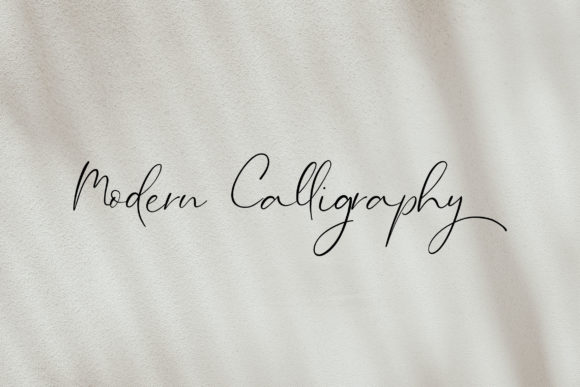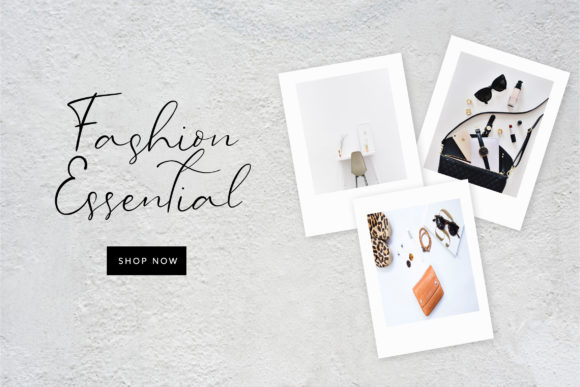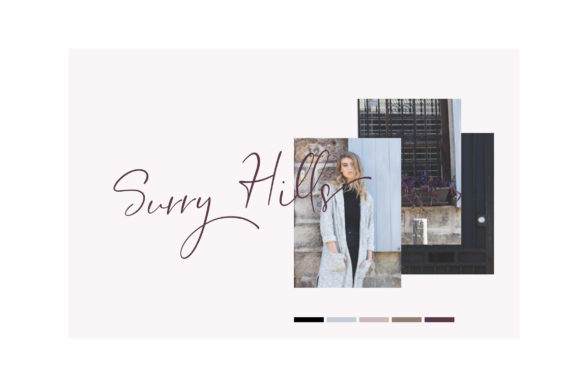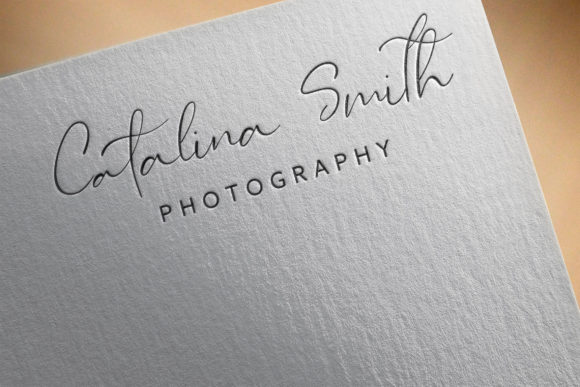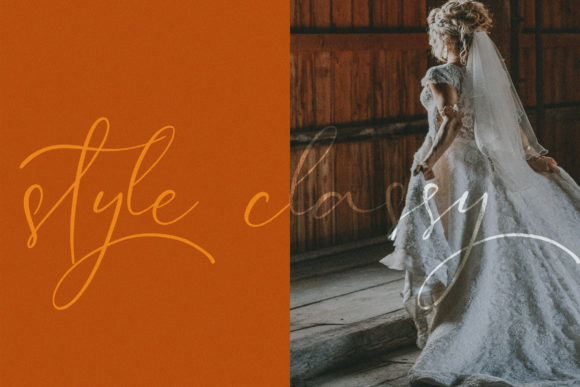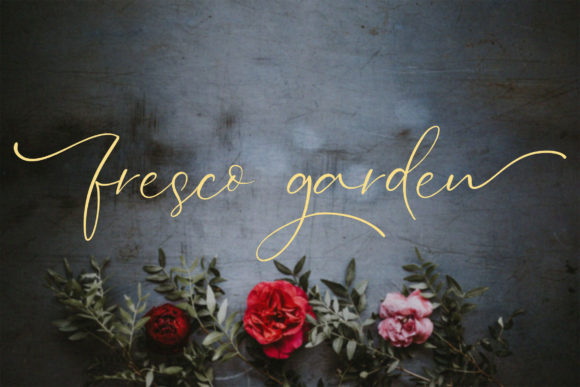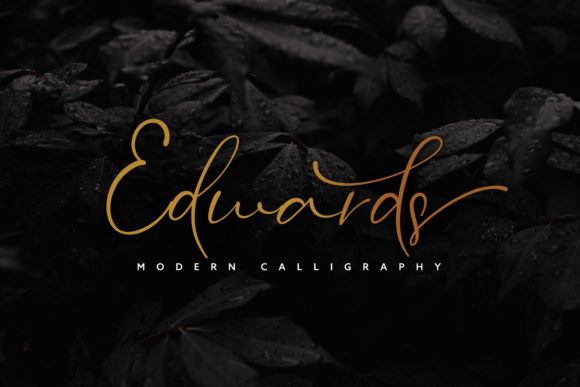
Introducing Edwards Font: Elevate Your Crafting Ideas with Style
Are you a designer, crafter, or DIY enthusiast looking for a font that can add a touch of elegance and whimsy to your projects? Look no further than Edwards Font, a beautiful and stylish script that is sure to take your crafting ideas to the next level. In this article, we’ll dive into the world of Edwards Font, exploring its features, benefits, and uses, and providing you with tips and inspiration for incorporating it into your creative projects.
What is Edwards Font?
Edwards Font is a casual script font that boasts beautiful, flowing letters that exude a sense of style and sophistication. With its elegant curves and relaxed vibe, Edwards Font is the perfect choice for crafters, designers, and DIY enthusiasts who want to add a personal touch to their projects. Whether you’re creating handmade cards, crafting unique jewelry, or designing eye-catching posters, Edwards Font is sure to impress.
Key Features of Edwards Font
• Stylish and Casual: Edwards Font strikes the perfect balance between style and casualness, making it suitable for a wide range of creative projects.
• Beautiful Letters: Each letter in Edwards Font is carefully crafted to showcase a unique and elegant design, ensuring that your projects stand out from the crowd.
• Easy to Read: Despite its stylish and cursive nature, Edwards Font remains highly legible, making it perfect for use in both digital and print materials.
• Versatile: Edwards Font can be used in a variety of contexts, from crafting and DIY projects to graphic design, branding, and marketing materials.
Benefits of Using Edwards Font
So why choose Edwards Font for your creative projects? Here are just a few benefits of using this stunning script font:
• Adds a Personal Touch: Edwards Font allows you to add a personal and human touch to your projects, setting them apart from more generic and impersonal designs.
• Enhances Creativity: With Edwards Font, you can unleash your creativity and experiment with new and innovative design ideas that showcase your unique style.
• Perfect for Branding: Edwards Font can be used to create a consistent brand identity across various marketing materials, including business cards, brochures, and social media graphics.
Using Edwards Font in Your Creative Projects
Now that we’ve explored the features and benefits of Edwards Font, let’s take a look at some creative ways to use this font in your projects:
• Handmade Cards and Invitations: Add a touch of elegance to your handmade cards and invitations with Edwards Font, perfect for special occasions like weddings, birthdays, and holidays.
• Jewelry Making: Use Edwards Font to create custom labels, tags, and packaging for your handmade jewelry, adding a professional and stylish touch to your products.
• Graphic Design: Incorporate Edwards Font into your graphic design projects, such as posters, flyers, and brochures, to add a unique and creative element.
Tips for Working with Edwards Font
To get the most out of Edwards Font, here are some tips to keep in mind:
• Experiment with Colors: Edwards Font looks great in a variety of colors, so don’t be afraid to experiment and find the perfect hue to match your brand or project.
• Mix and Match: Combine Edwards Font with other fonts and design elements to create a unique and visually appealing design.
• Pay Attention to Spacing: Make sure to adjust the spacing between letters and words to ensure that your text is easy to read and visually appealing.
In conclusion, Edwards Font is a stylish and casual script font that is sure to elevate your crafting ideas to the next level. With its beautiful letters, ease of use, and versatility, Edwards Font is the perfect choice for designers, crafters, and DIY enthusiasts looking to add a personal touch to their projects. So why wait? Download Edwards Font today and start creating stunning designs that showcase your unique style!